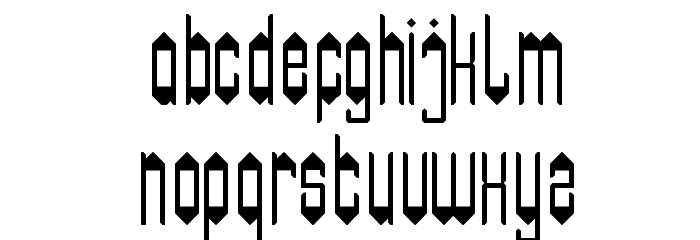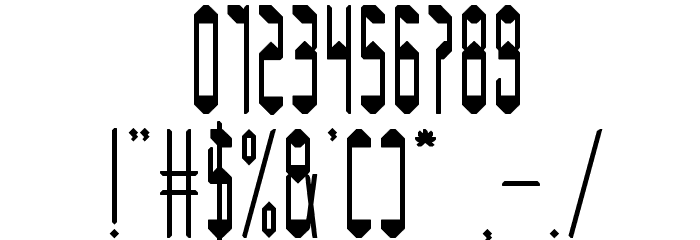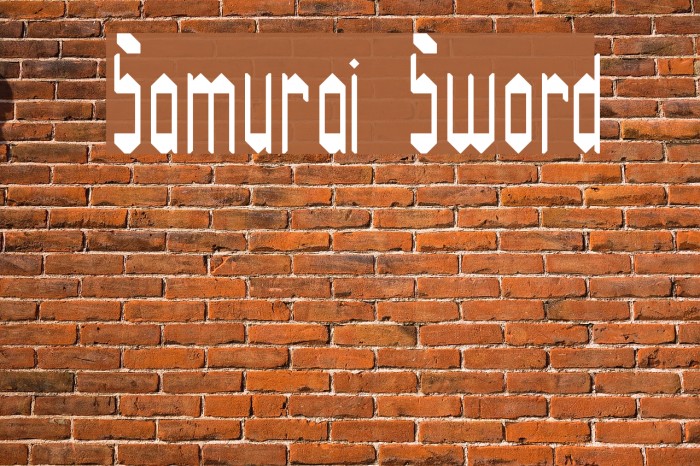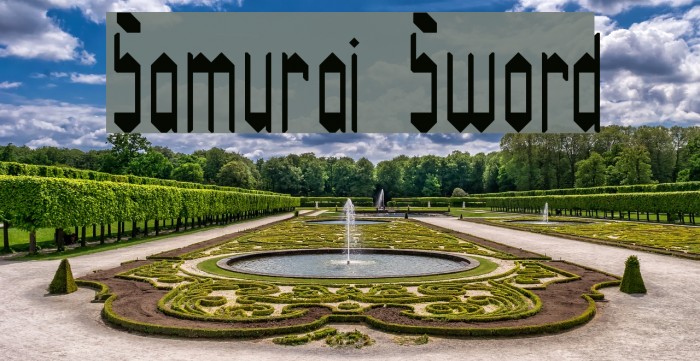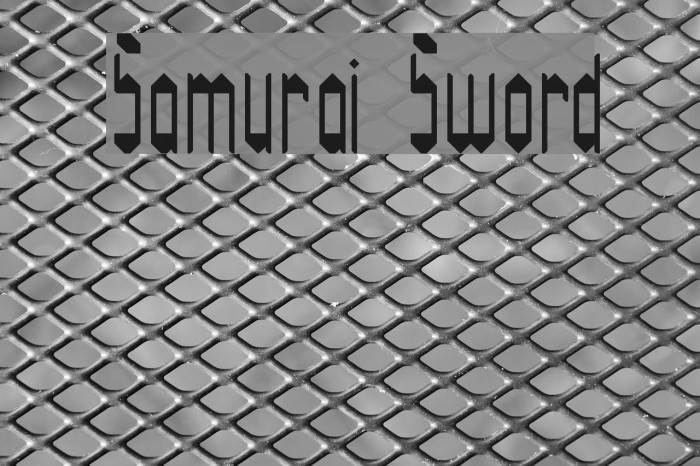
Samurai Sword Font
This font features a bold and angular design, reminiscent of traditional Japanese calligraphy with a modern twist. The characters are constructed with sharp, geometric lines and a distinct blocky appearance, giving it a unique and striking look. The uppercase and lowercase letters maintain a consistent style, with the uppercase being more pronounced and the lowercase slightly more compact. Numbers and special characters follow the same design principles, ensuring uniformity across all glyphs. The font's aesthetic is both edgy and sophisticated, making it suitable for projects that require a strong visual impact.
A bold, angular font inspired by Japanese calligraphy with a modern edge.
- Proposed Projects: Ideal for branding, posters, video game titles, and any project needing a bold, cultural touch.